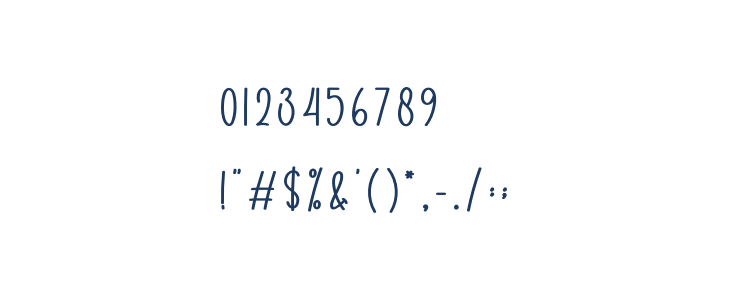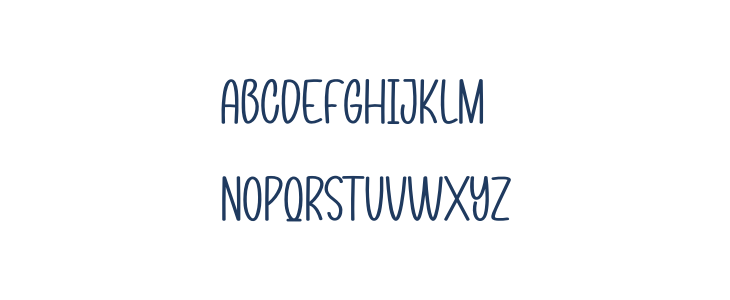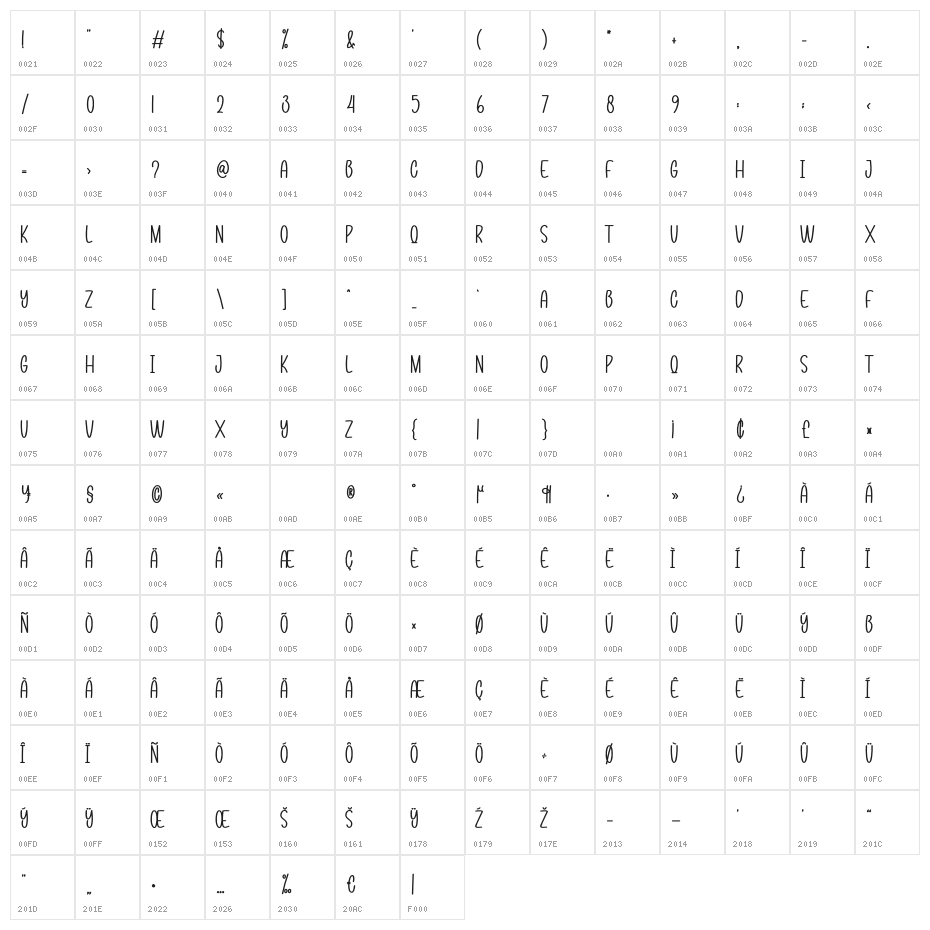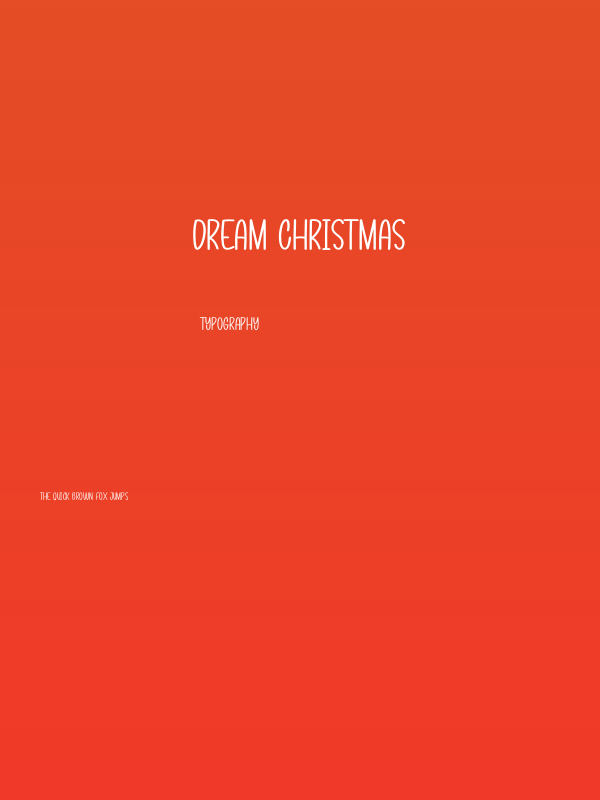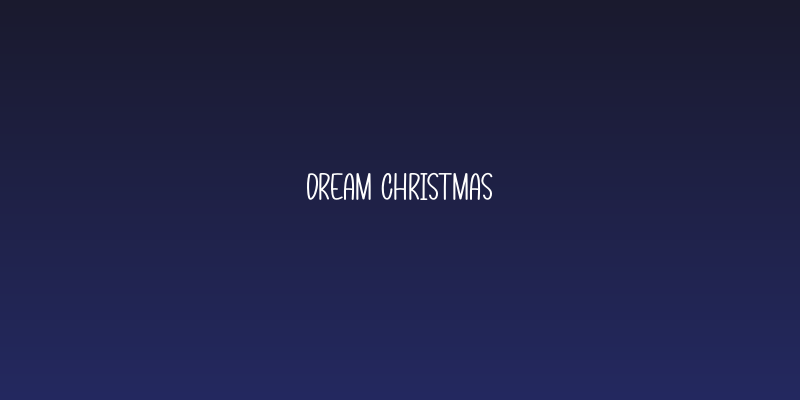
Dream Christmas Font
Dream Christmas Description
A playful, handwritten sans-serif font with tall, narrow letters and rounded edges, giving a casual and friendly appearance. The strokes are consistent in thickness, and the characters have a slightly whimsical, informal style.
| Overall Style | Playful, Casual, Whimsical |
| Use Case | Greeting cards, Invitations, Posters, Social media graphics |
| Proposed Projects | Greeting cards, children's books, festive invitations, casual branding, social media graphics. |